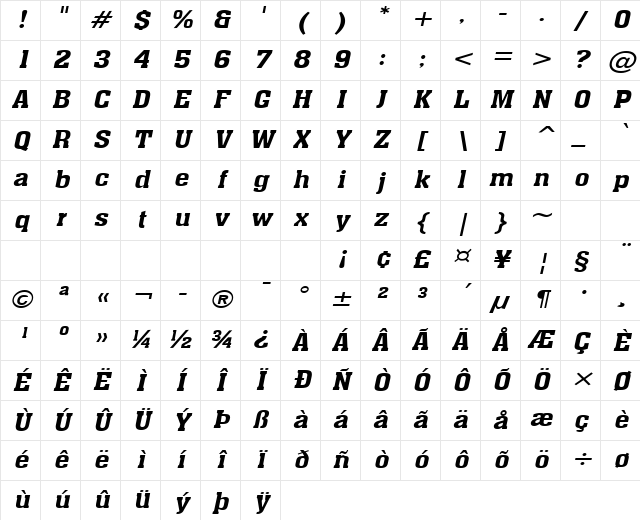
Ache-Extended Bold Italic Free Font
Ache-Extended Bold Italic
Design Context for Ache-Extended
Ache-Extended is a composed and adaptable typeface that performs quietly and consistently across a wide range of design contexts. The slanted form adds forward momentum and visual energy. Its bold stroke weight gives it real presence on the page.
Pro Tip: Use Ache-Extended for emphasis, pull quotes, and subheadings where its slanted energy can add rhythm to the layout.